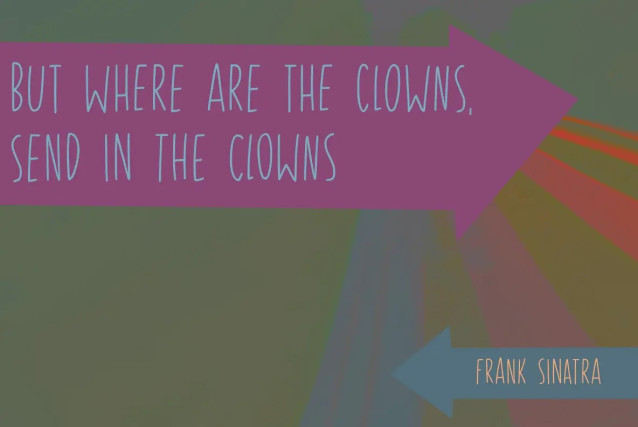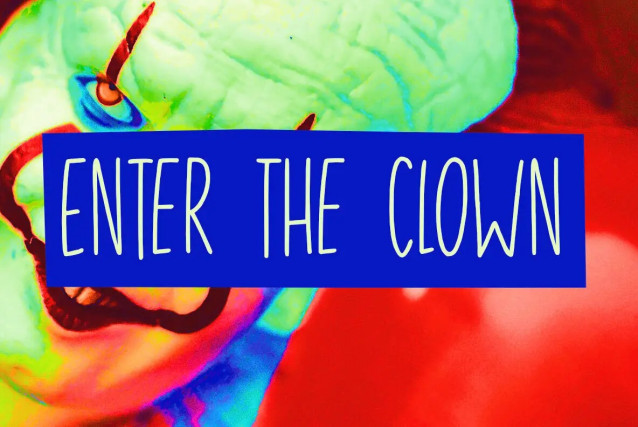
Enter The Clown Font
Enter The Clown is a unique, handmade, all-caps display font designed to stand out with its tall, thin lettering. Ideal for projects that require a bold and intriguing aesthetic, it captivates with its distinctive style. This font seamlessly integrates a playful yet unsettling vibe, making it perfect for creative projects in need of a touch of whimsy or an eerie flair.
Enter The Clown includes a set of alternates, offering versatility and customization in your designs. With full language support, it caters to a wide array of applications, ensuring that your message has the desired impact across different languages and regions. Add a bit of unexpected character to your design work with this standout font choice.